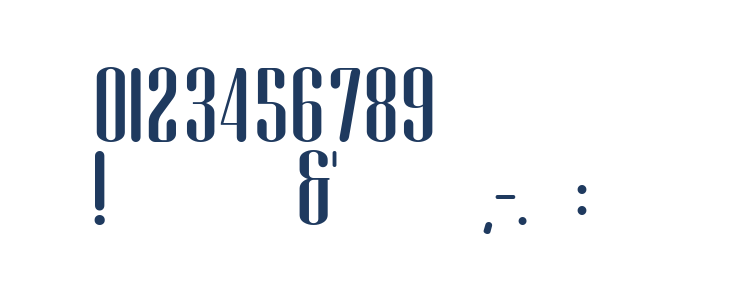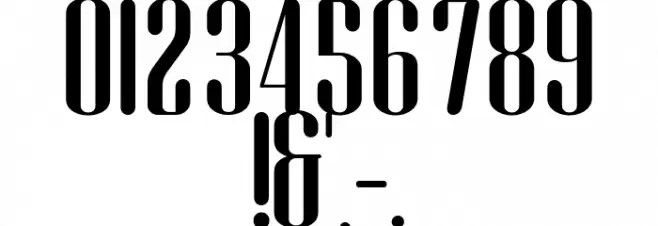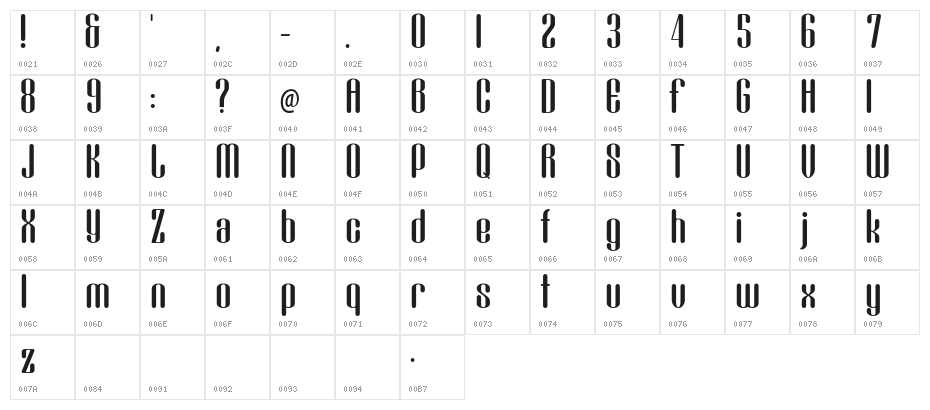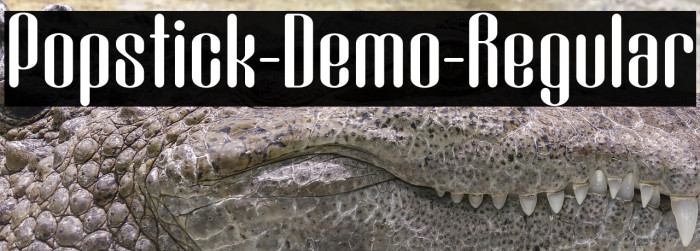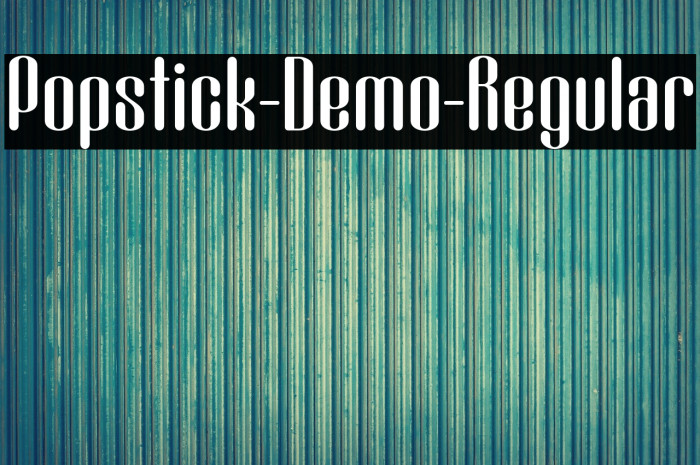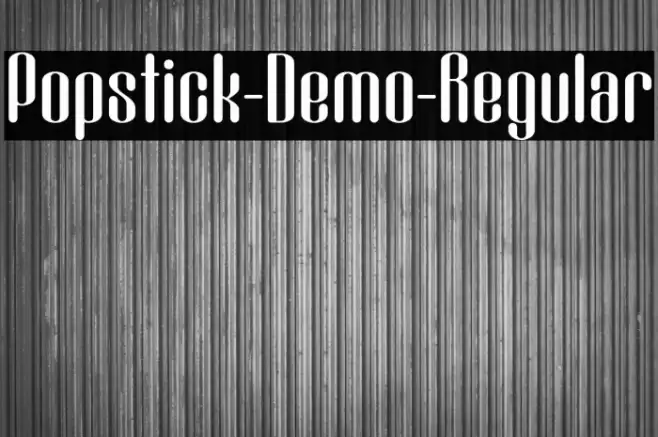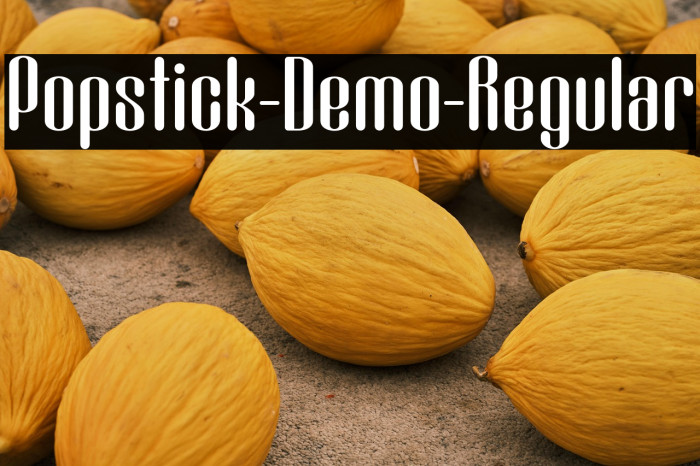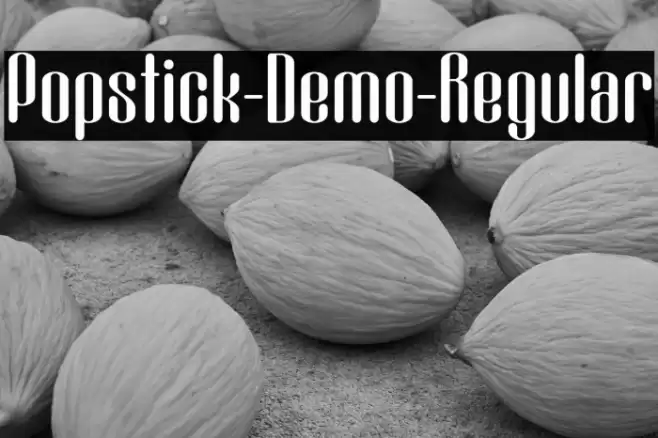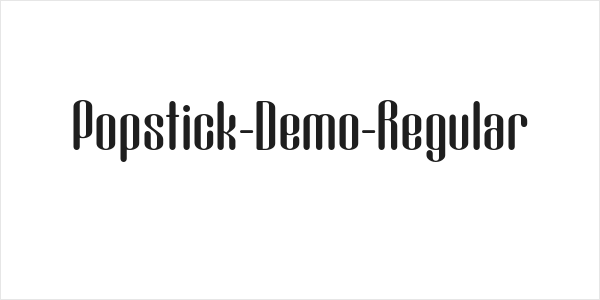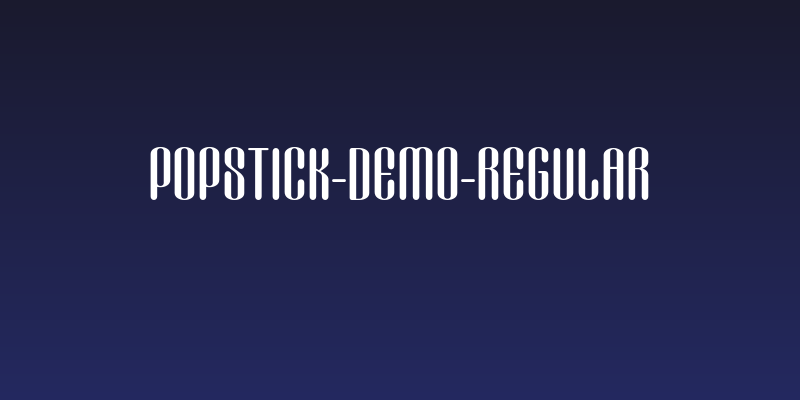
Popstick-Demo-Regular Font
Popstick-Demo-Regular Description
This font features a modern, sleek design with elongated, rounded characters that create a unique and stylish appearance. The uppercase letters are tall and narrow, while the lowercase letters maintain a consistent height, providing a harmonious balance. The numerals are distinct and align well with the overall aesthetic. Special characters are creatively integrated, adding to the font's versatility. The smooth curves and clean lines make it suitable for contemporary design projects, offering a fresh and dynamic look.